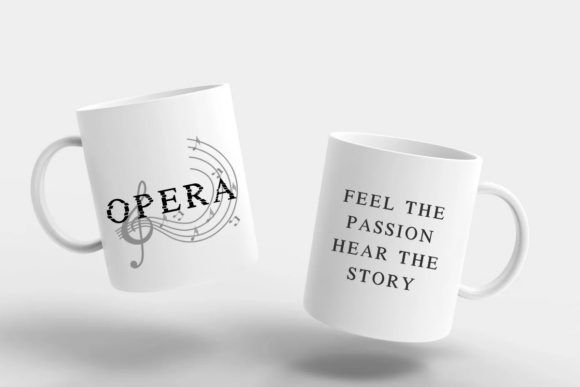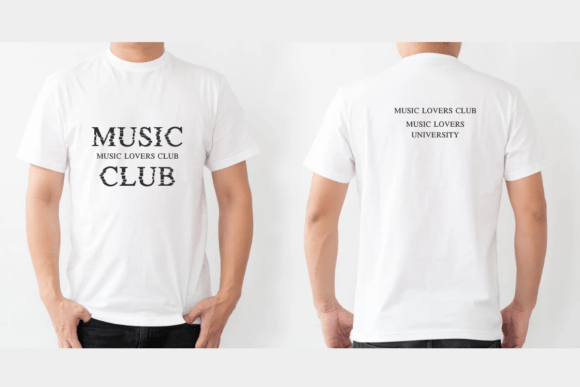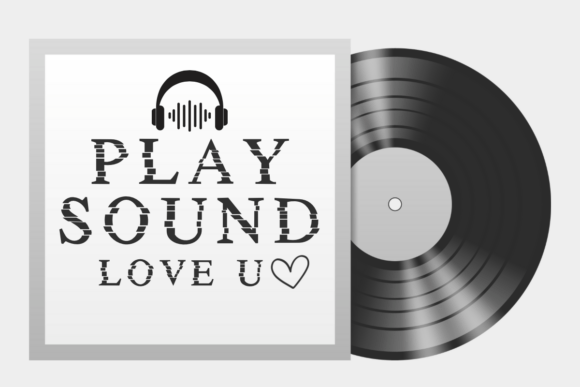
Play Music Font
Play Music is a decorative font. You can use it for taking notes, writing a diary, or making greeting cards. However, you can still use it for other designs, such as banners, content, mugs, cards, shirts, stationery, social media posts, and more!